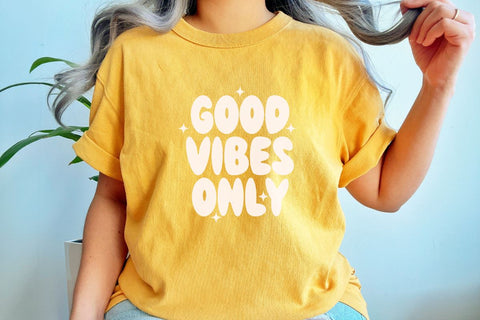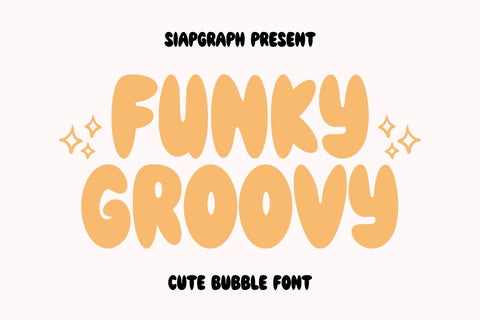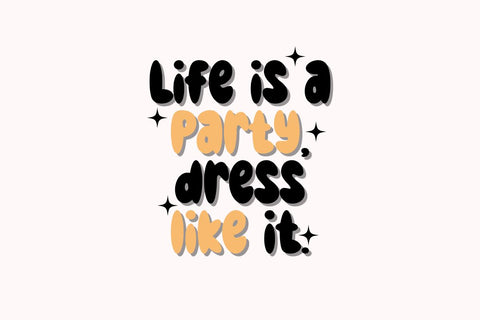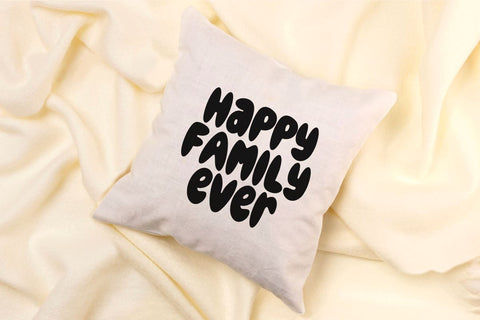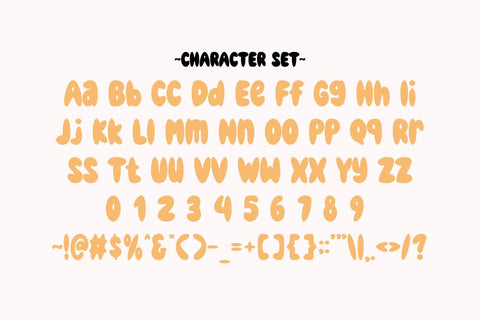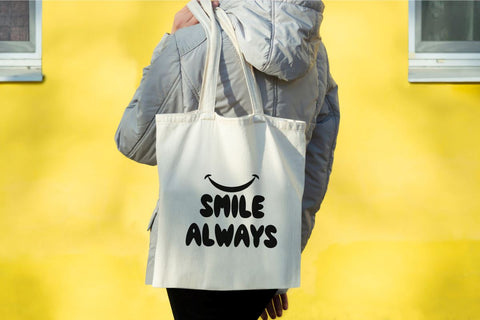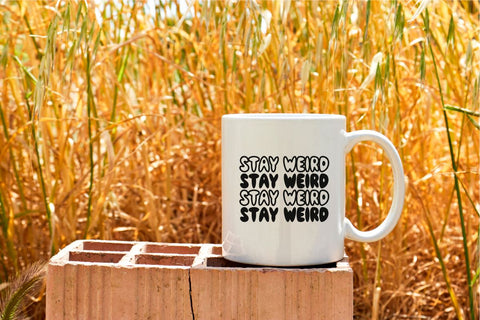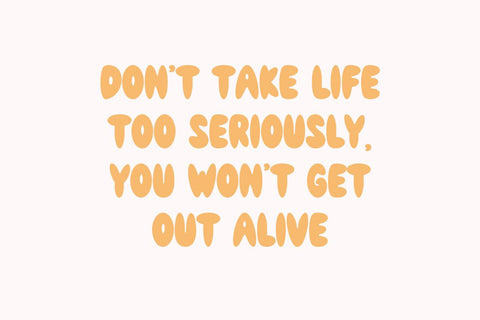
Funky Groovy - Retro Bubble Font
Funky Groovy is a playful bubble font perfect for adding a touch of retro fun to your designs. With its rounded, bouncy letters and cheerful style, this font is ideal for creating nostalgic designs for food menus, branding, and more.